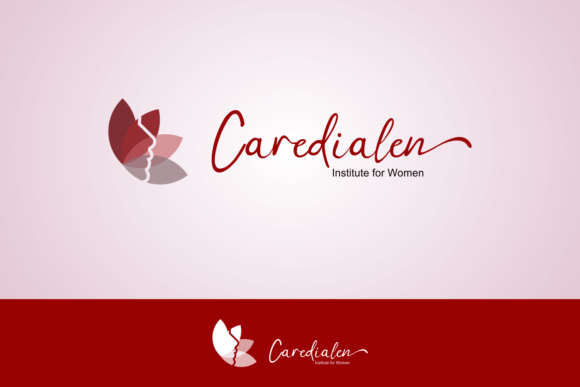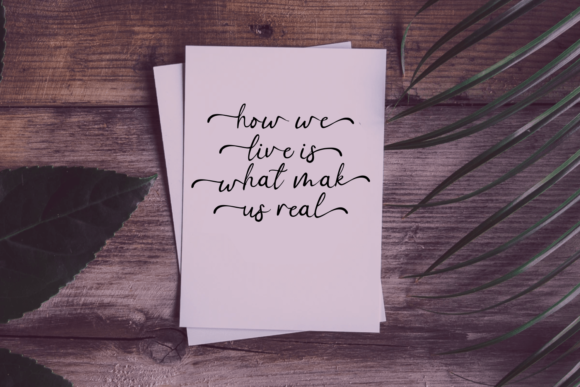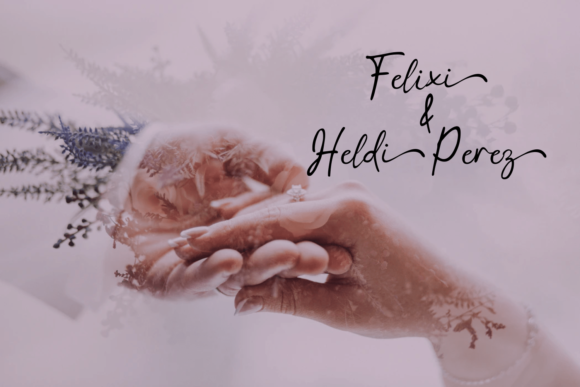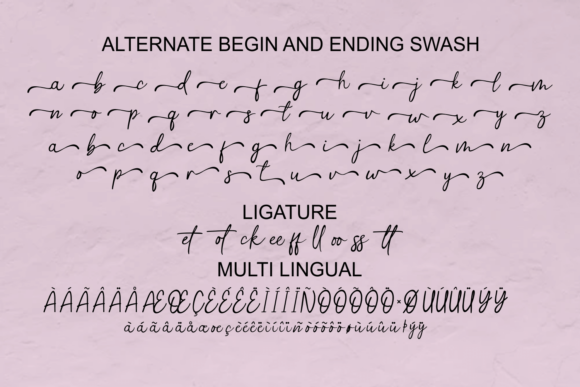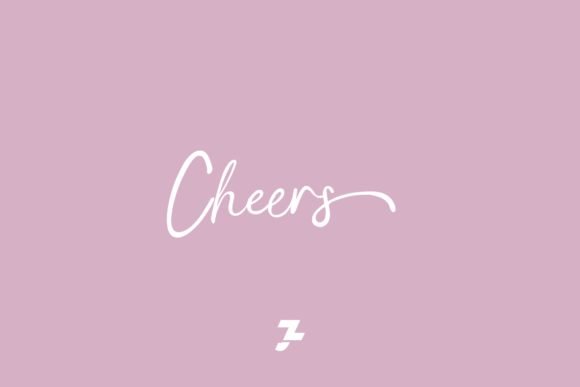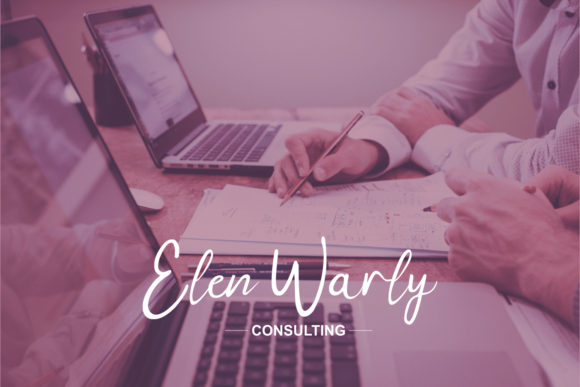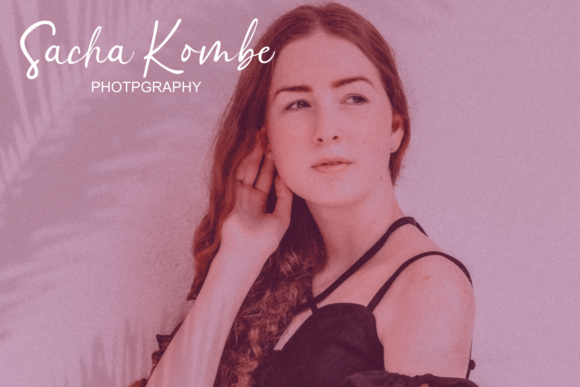
Greemicaly Font
About Greemicaly Font
Greemicaly is an elegant script font with a contemporary atmosphere and impeccable form, inspired by timeless classic calligraphy. Not too thin and not too thick, balanced and varied, this font was designed to enhance the beauty of your projects.